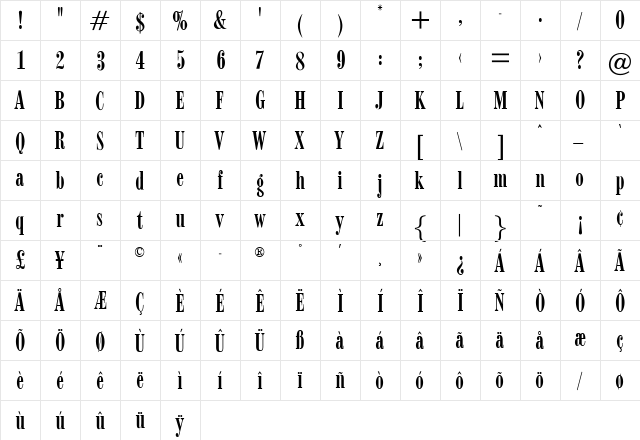
OPTIBodoniCampanileFive Regular Font Preview
OPTIBodoniCampanileFive Regular
OPTIBodoniCampanileFive Regular Font Details
Design Context for OPTIBodoniCampanileFive Typeface
OPTIBodoniCampanileFive takes a measured approach to typography — its balanced proportions and neutral character make it a reliable workhorse for both digital and print work.